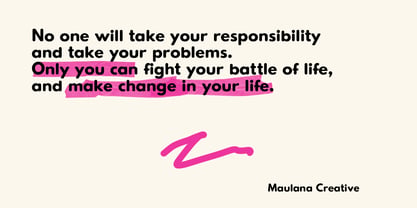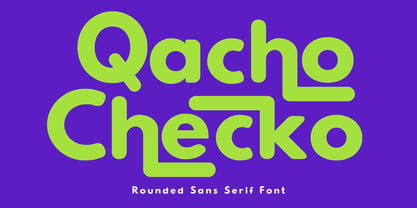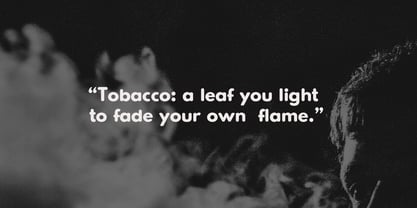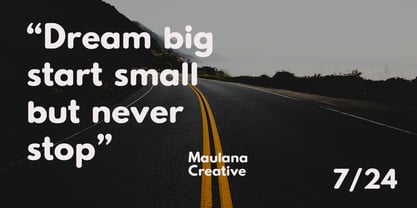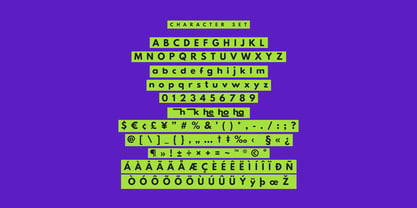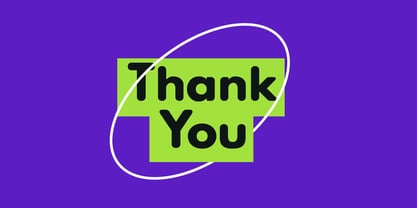
MC Qacho Checko
por Maulana Creative
La familia tipográfica MC Qacho Checko fue diseñada por Gilang Maulana y publicada por Maulana Creative. MC Qacho Checko contiene 1 estilos. Más información sobre esta familia
Qacho Checko is a casual sans serif rounded display font. With bold stroke, fun character with a bit of ligatures and alternates. To give you an extra creative work. Qacho Checko font support multilingual more than 100+ language. This font is good for logo design, Social media, Movie Titles, Books Titles, a short text even a long text letter and good for your secondary text font with sans or serif. Make a stunning work with Qacho Checko font.